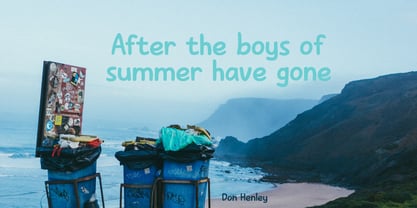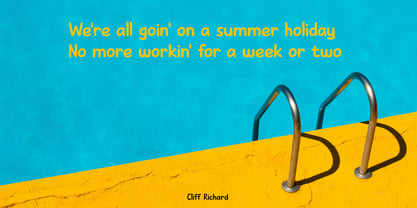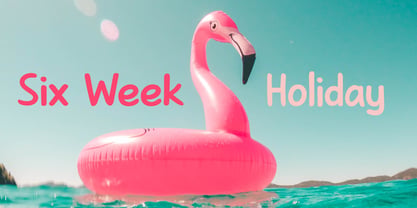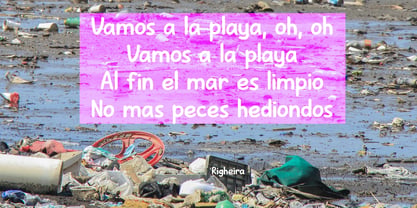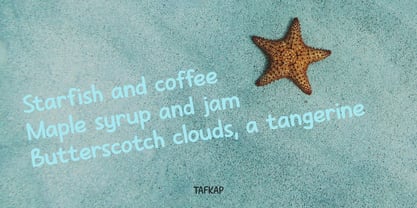
Six Week Holiday Pro
La famille de polices Six Week Holiday Pro a été conçue par David Kerkhoff et publiée par Hanoded. Six Week Holiday Pro contient 2 styles et options de package familial. En savoir plus sur cette famille
In Holland, all kids have a six week long school holiday during the summer months. To prevent chaos, traffic jams and other madness, the government has divided the country in three regions (North, Middle and South) and school holidays start a few days to a week and a half apart.
For kids this is the best time of the year, as they can have fun for a month and a half, but for us parents this sometimes is a bit of a logistic nightmare, as we still have to work!
Six Week Holiday is an ode to the chaos of summer. It is a cute handmade ‘school’ font that will put some sunshine in your designs! Comes with extensive language support.
Hanoded is run by Dutchman David Kerkhoff. His fonts are a mishmash of styles, as he just creates whatever pops into his head. You will find a lot of brush fonts in his collection, as his favourite tools are brushes and Chinese ink, with cartoon style fonts and script fonts complementing his repertoire. Aside from making fonts, David occasionally guides tours in far-flung places, renovates his '30's house and tries reasoning with his wife and (teenage) kids. Not an easy task!